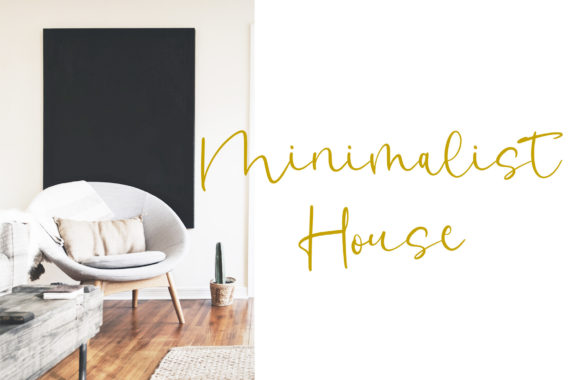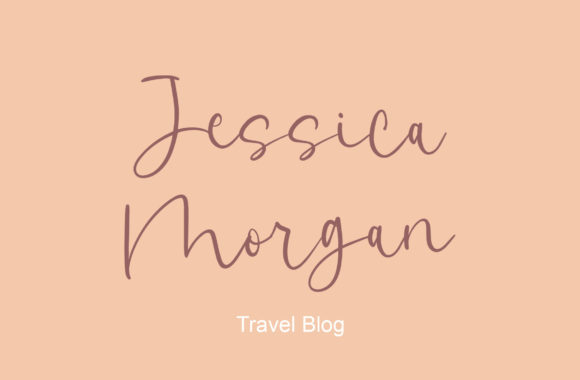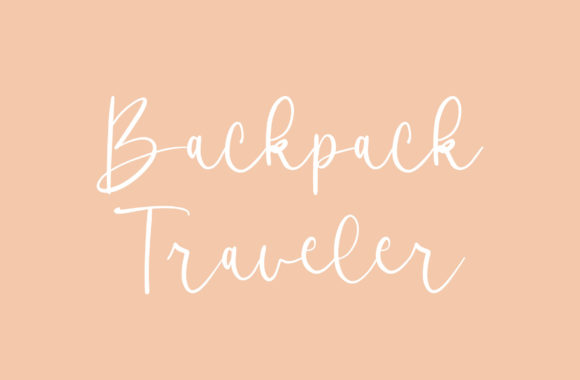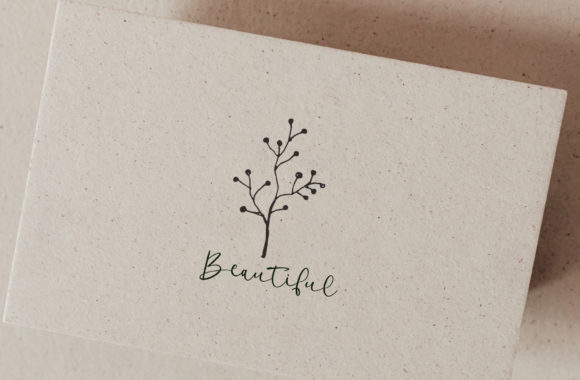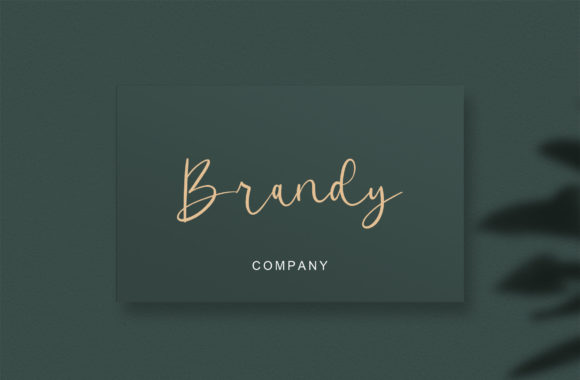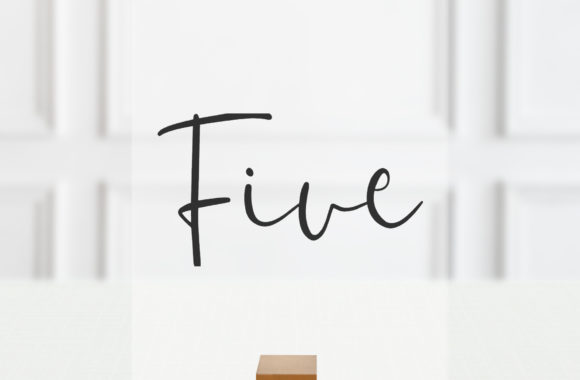
Last Night Font
About Last Night Font
Introducing “Last Night,” a beautiful and refined script font that exudes elegance and modernity. With its sophisticated letterforms and stylish design, Last Night is the perfect choice for a wide range of projects, from logos and branding to invitations, stationery, wedding designs, social media posts, and more.
Last Night’s sleek and flowing strokes give each letter a sense of grace and sophistication. The balanced proportions and delicate curves create a harmonious look that is both timeless and contemporary. Whether you’re designing a high-end brand identity or a romantic wedding invitation, Last Night adds a touch of class and refinement to your designs.
The versatility of Last Night makes it suitable for various design applications. Its clean and legible style ensures readability, while the elegant flourishes and swashes add a touch of decorative flair. You can use Last Night to create stunning logos that leave a lasting impression, or to craft invitations and stationery that reflect sophistication and style.
When it comes to wedding designs, Last Night truly shines. Its elegant and romantic vibe pairs perfectly with the joyous atmosphere of weddings. From save-the-date cards to wedding invitations, menu cards, and place cards, Last Night adds a touch of luxury and elegance to every piece of stationery.
Social media posts and quotes also benefit from the charm of Last Night. Its refined look makes any text stand out, whether you’re sharing inspirational quotes or promoting your brand on Instagram, Facebook, or Pinterest. Last Night’s versatility allows you to create captivating designs that engage your audience.
Last Night is designed with attention to detail, ensuring that each character is carefully crafted to maintain the overall aesthetic. Its modern and elegant style ensures that your designs will stand the test of time, remaining visually appealing for years to come.
In summary, Last Night is a beautiful and refined script font that adds class, elegance, and a modern touch to your designs. With its versatility and ability to enhance logos, branding, invitations, stationery, wedding designs, social media posts, and more, Last Night is a valuable asset to your font library. Embrace the elegance of Last Night and elevate your designs to new heights.